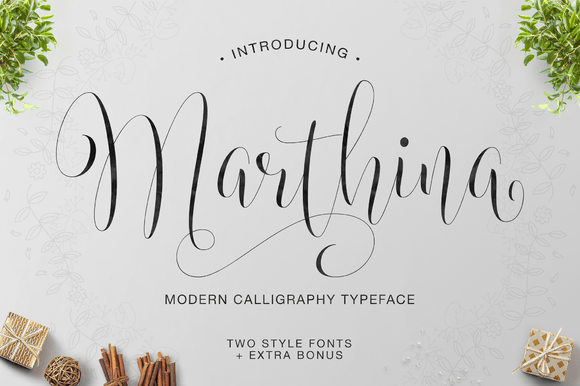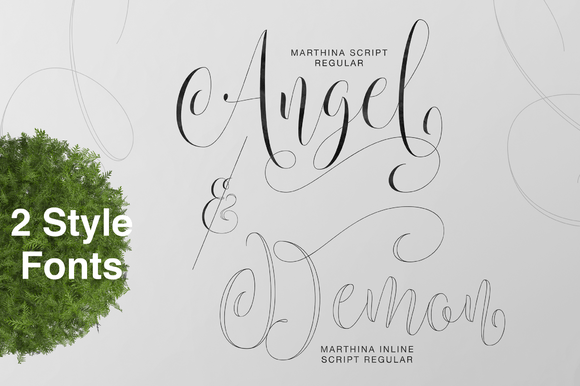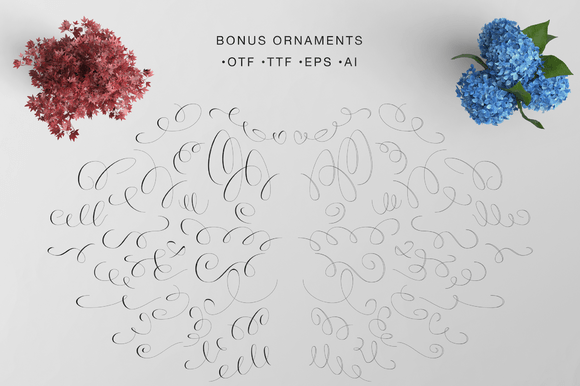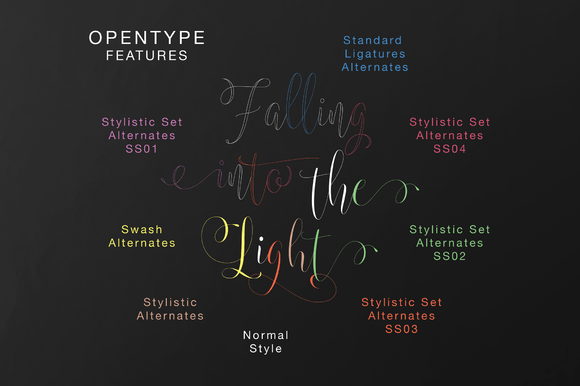
Marthina Font
About Marthina Font
Marthina is a flourished and beautiful script font with an aristocratic feel. This font is ideal in large format designs and stands out among the crowd.